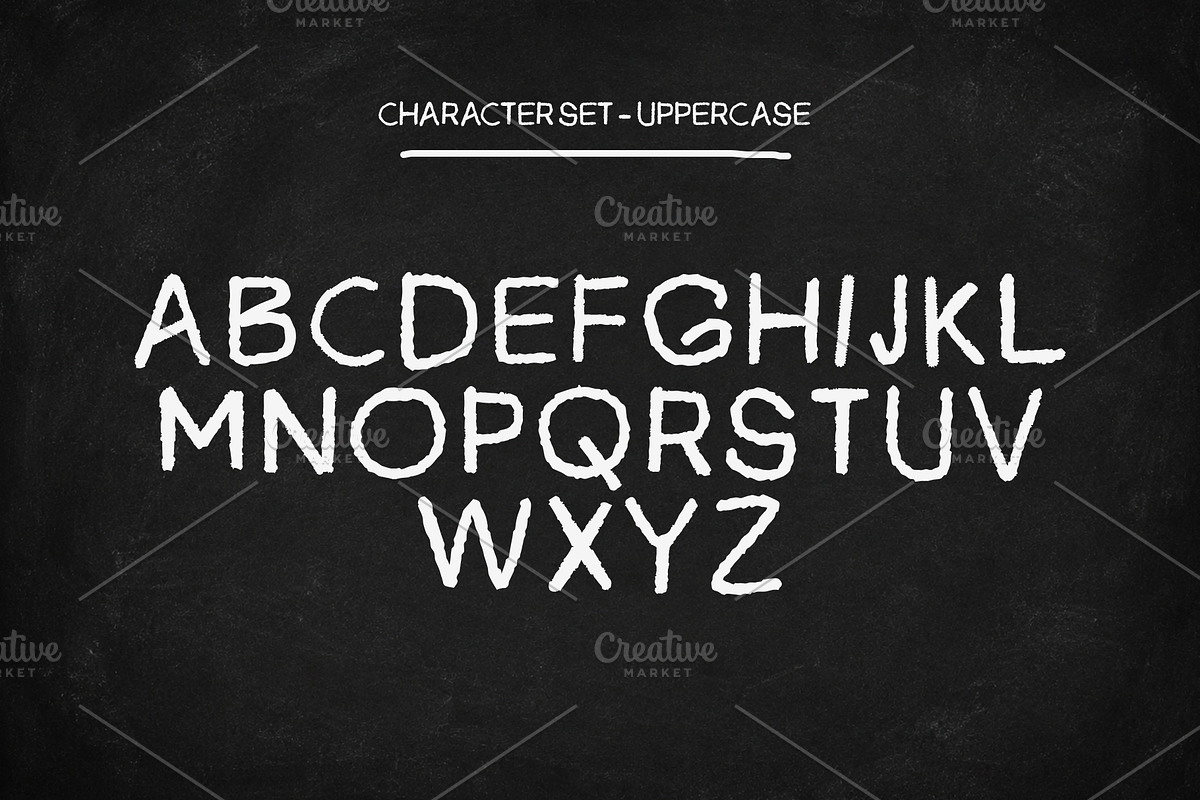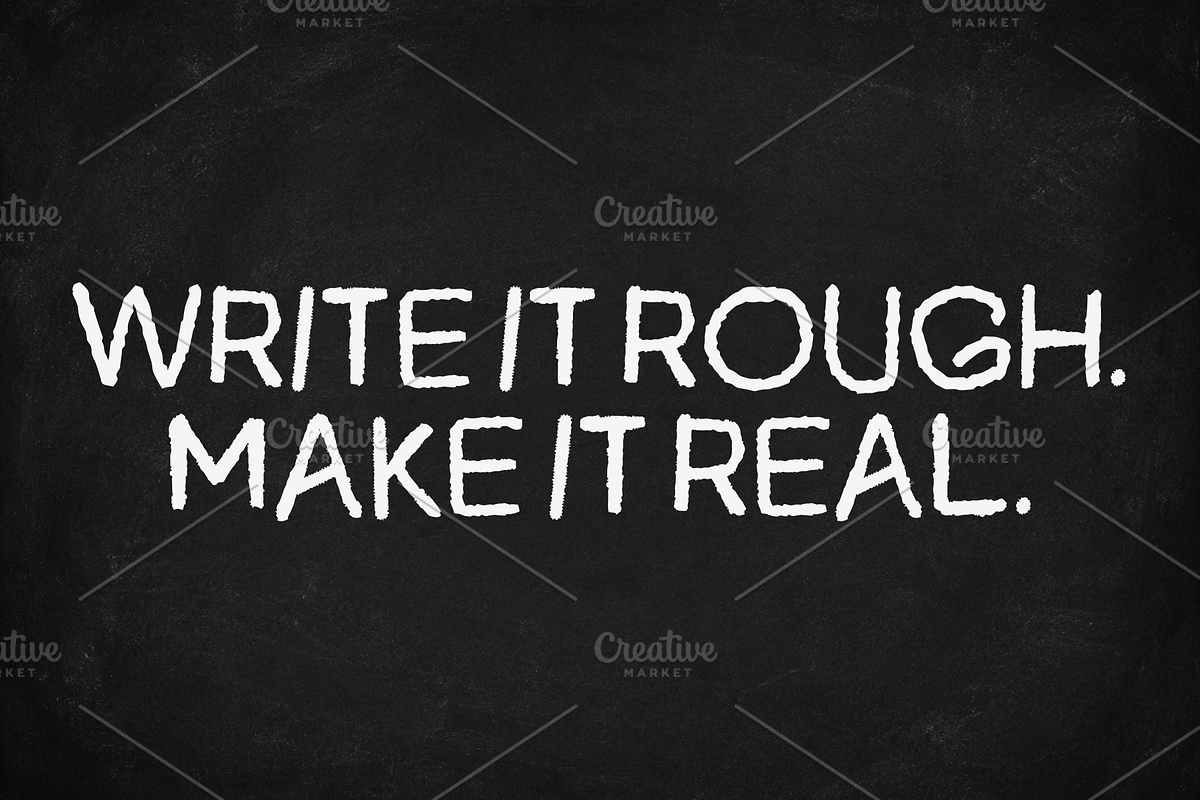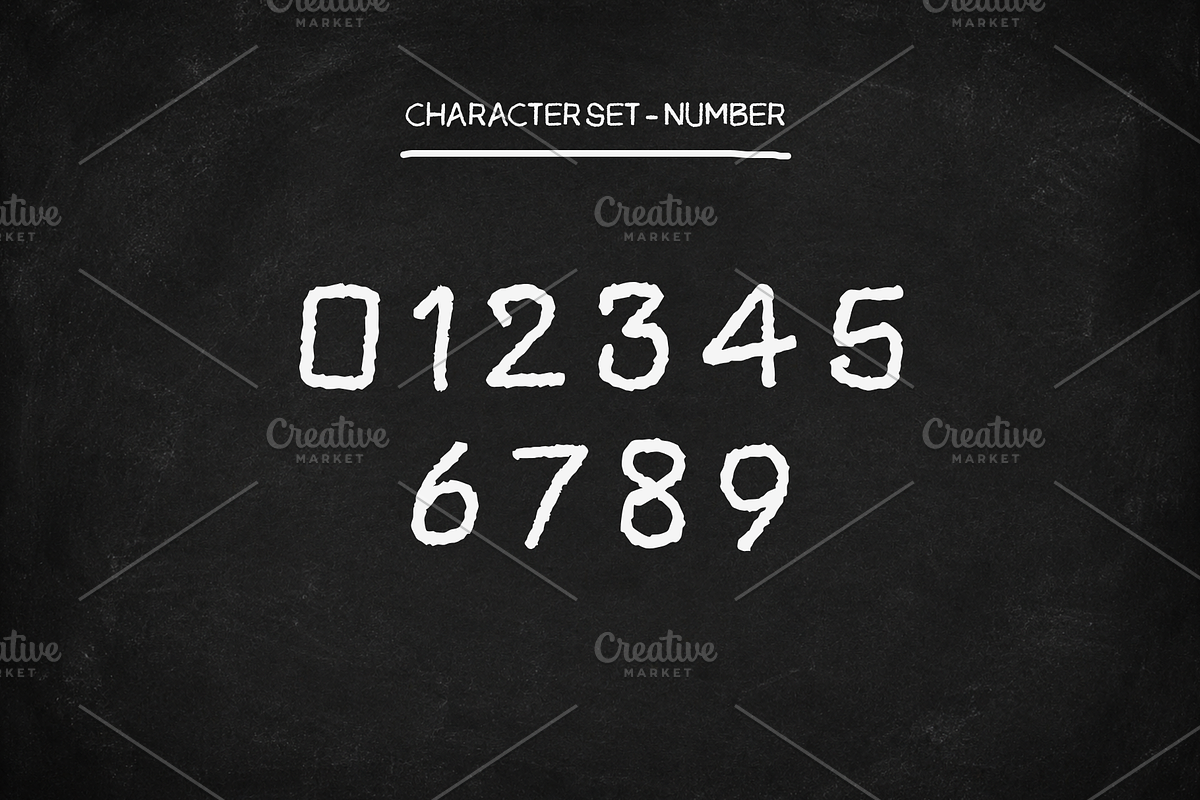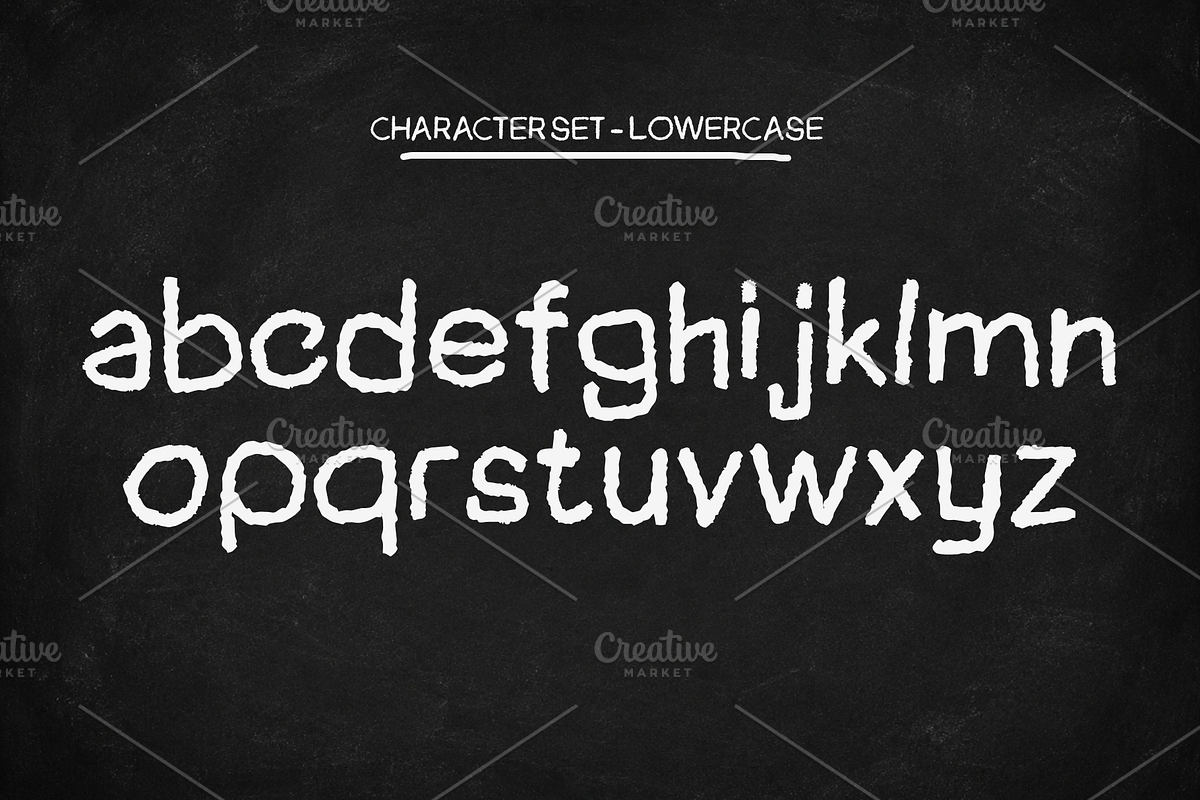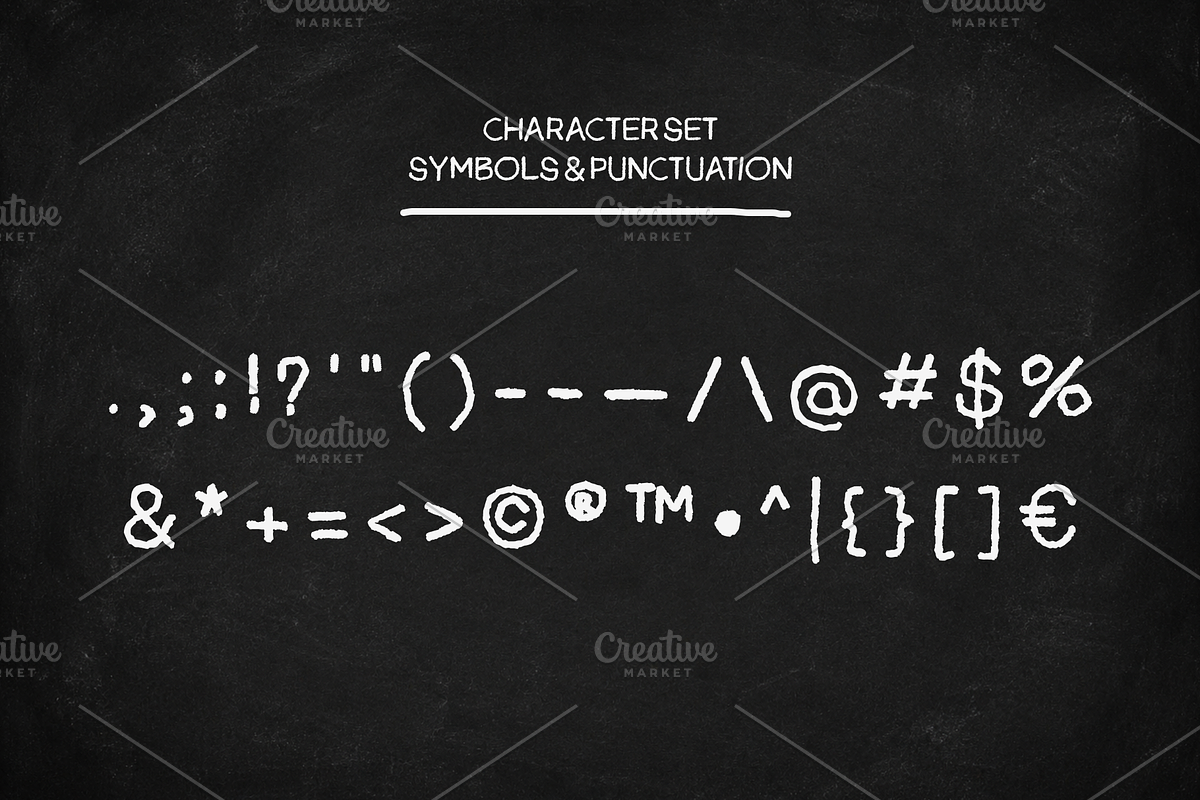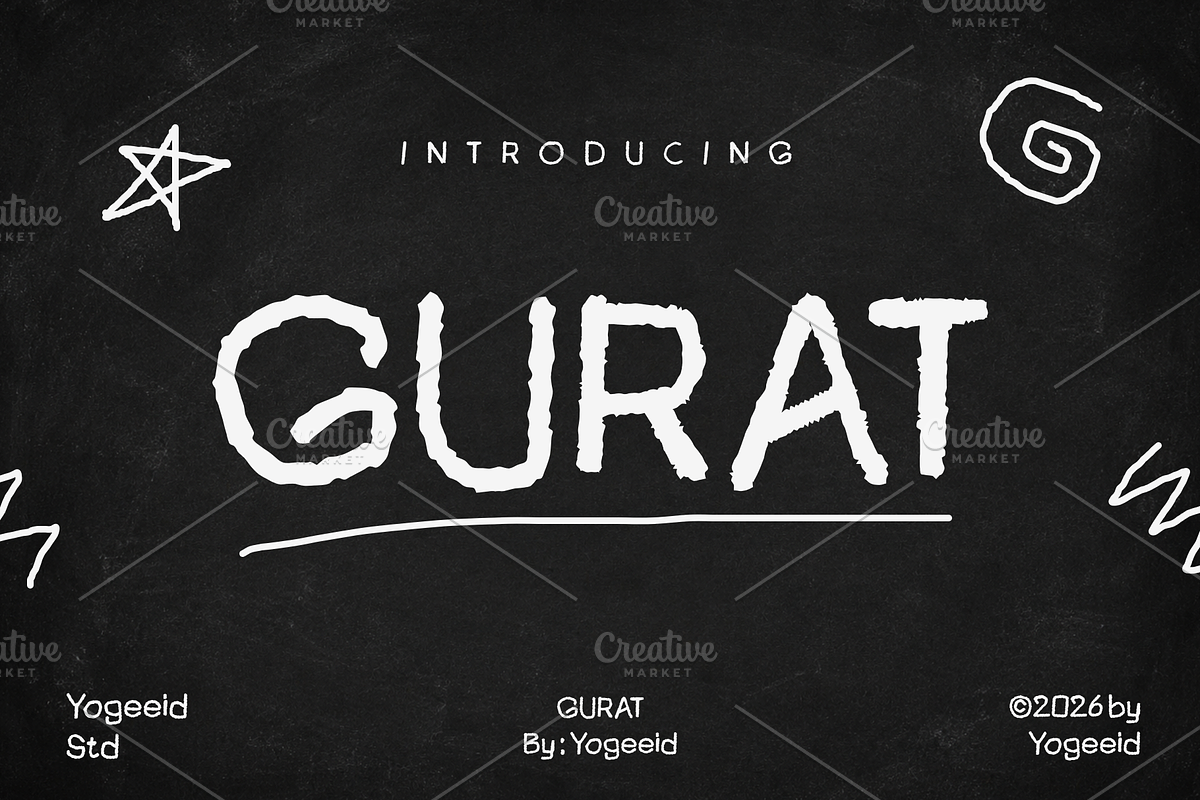
Gurat - Rough Handwritten Font
GURAT — Rough Handwritten Chalk Font
Bring an authentic handmade touch to your creative projects with GURAT, a rough handwritten display font inspired by natural chalk strokes and imperfect hand-drawn lettering.
Designed with irregular edges, organic shapes, and a raw handwritten character, GURAT gives your designs a personal and expressive feel — perfect for projects that need something less polished and more human.
From chalkboard designs and posters to branding, packaging, social media graphics, and creative quotes, GURAT is made to stand out while keeping that authentic handmade personality.
GURAT is intentionally imperfect — every irregular edge and uneven stroke is part of its personality.
Make your designs feel handwritten. Make them feel real.
GURAT Rough Handwritten Font